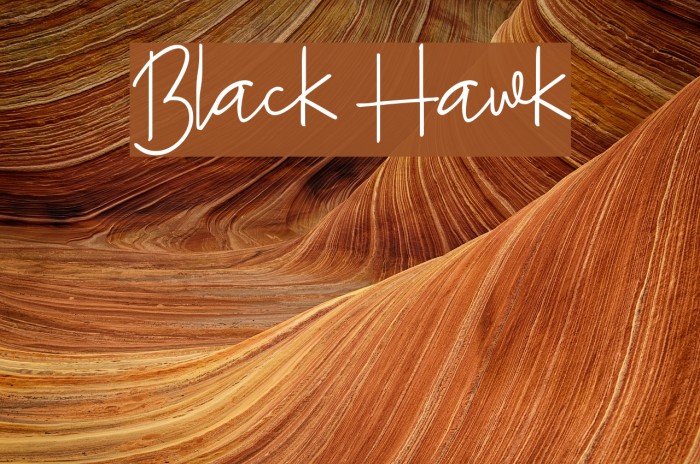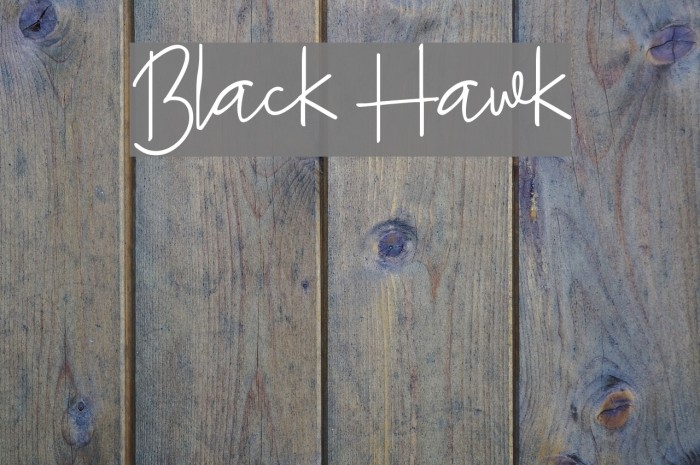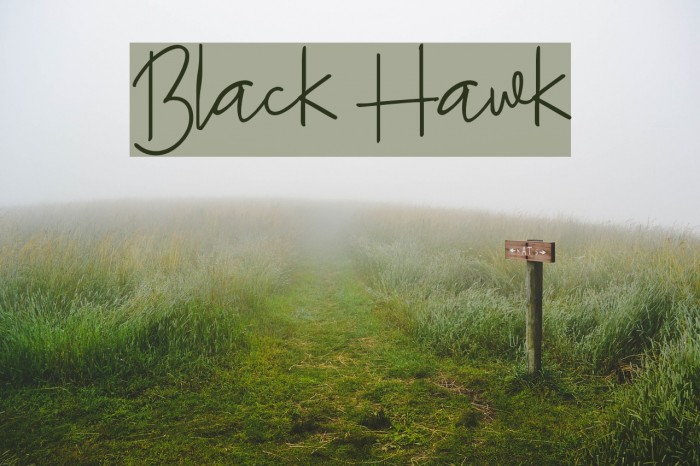
Black Hawk Font
This font features a playful and casual handwritten style, characterized by its flowing and slightly irregular letterforms. The uppercase letters are tall and narrow, with a slight slant that adds a dynamic feel. Lowercase letters maintain a consistent flow, with some characters extending below the baseline, enhancing the handwritten aesthetic. The numerals are clear and easy to read, matching the overall informal style. Special characters are creatively integrated, maintaining the font's cohesive look. This font is ideal for projects that require a personal touch, such as invitations, greeting cards, or creative branding.
A playful, casual handwritten font with flowing, slightly irregular letterforms.
- Proposed Projects: Ideal for invitations, greeting cards, creative branding, and personal projects.
- Overall Style: Casual
- Use Case: Creative branding, Invitations, Greeting cards